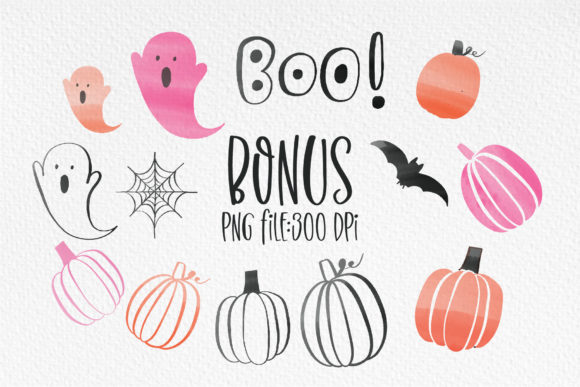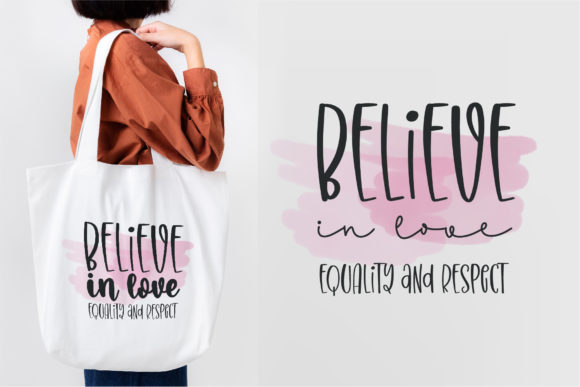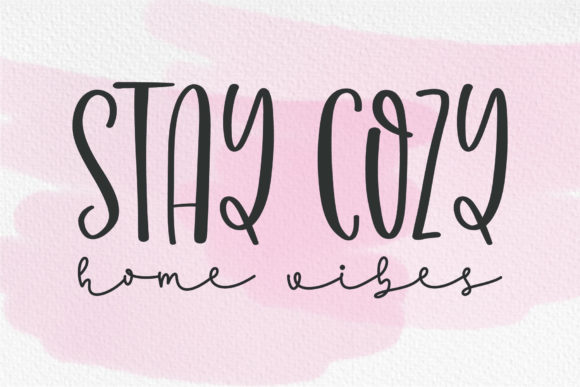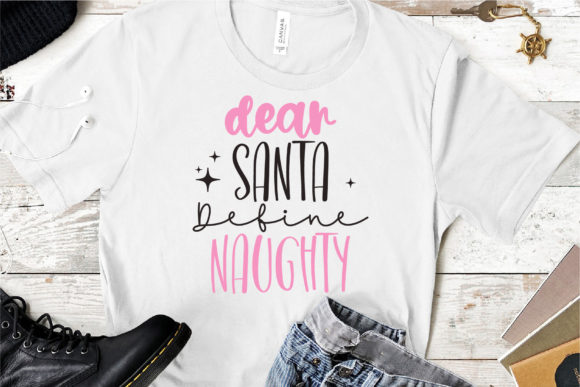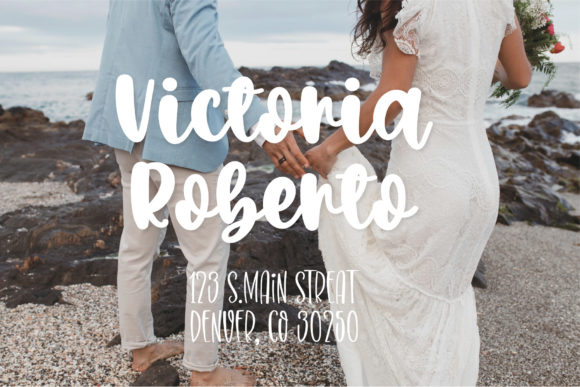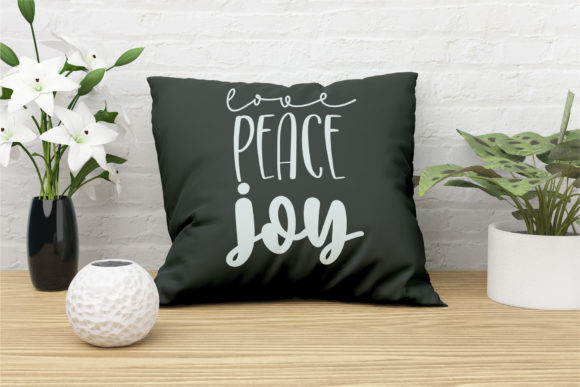
Peace Love Halloween Font – Free Download
Introduction to Peace Love Halloween Font
Peace Love Halloween is a cute and relaxed trio styled handwritten font.
Its natural and unique style makes it suitable for a variety of design ideas Add it confidently to your projects, and you will love the results.
Key Features of Peace Love Halloween Font
Why Choose Peace Love Halloween Font?
Peace Love Halloween Font offers exceptional quality and versatility, making it a valuable addition to your design toolkit. Whether you’re creating for personal projects or commercial use, Peace Love Halloween Font delivers professional results.